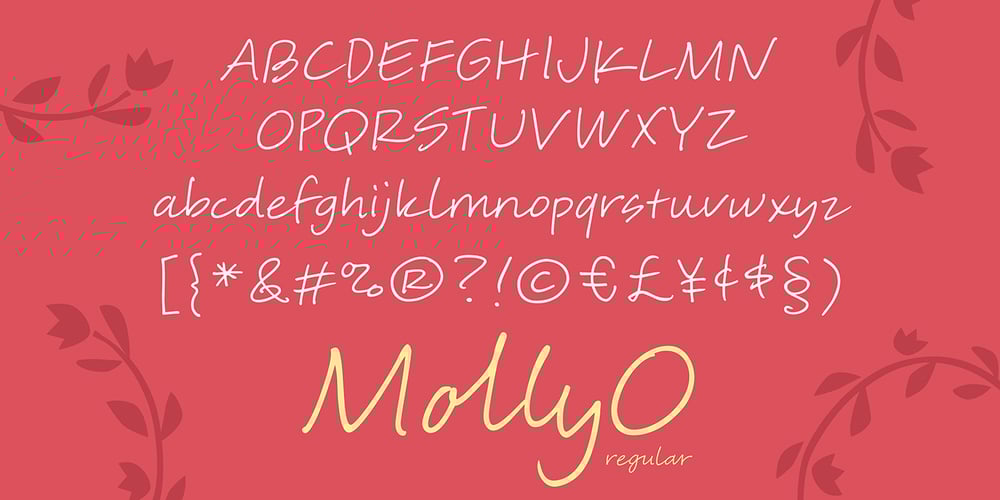
MollyO Font Family was designed by Amy Dietrich and published by Atlantic Fonts. MollyO contains 2 styles and family package options. MollyO font family is based on the original, reliably cool handwriting of illustrator (and dear friend), MollyO of mollyOcards. Like MollyO herself, this font is unique, unpretentious, and beautiful. Part printed and part script, it has the authentic connections and stops of a contemporary, casual font. For the truest handwritten feel, keep discretionary ligatures on, or turn them off where you want more evenness. MollyO is expressive in all-caps, available in two weights, and with effortless warmth and inky flow, will bring a wide range of creative projects to life.